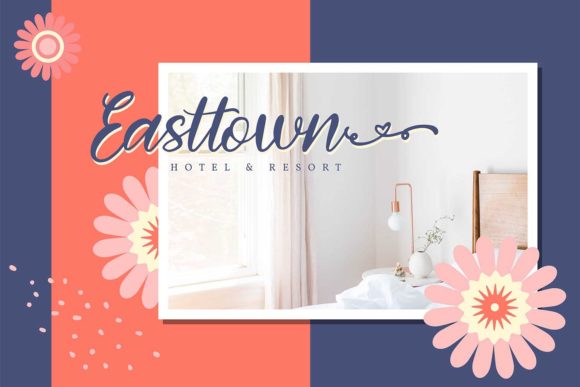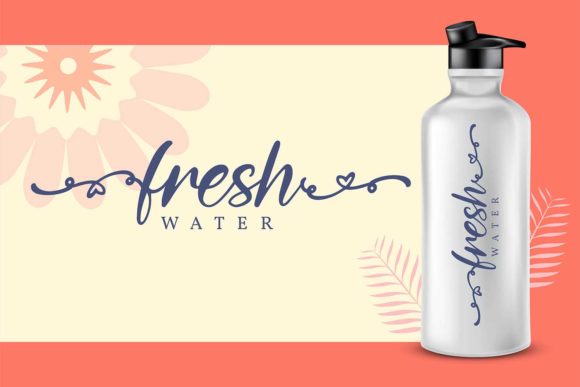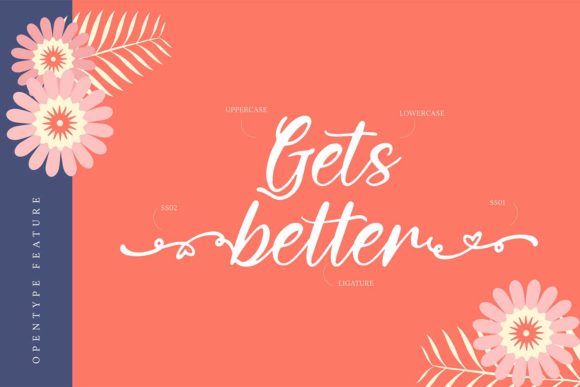
Introduction to Callistin Font
Callistin is a balanced and varied handwritten font.
Fall in love with its adaptable style and use it to create ravishing wedding invitations, beautiful stationary art, eye-catching social media posts, and much more This font is PUA encoded which means you can access all of the glyphs and swashes with ease.
Key Features of Callistin Font
Why Choose Callistin Font?
Callistin Font offers exceptional quality and versatility, making it a valuable addition to your design toolkit. Whether you’re creating for personal projects or commercial use, Callistin Font delivers professional results.